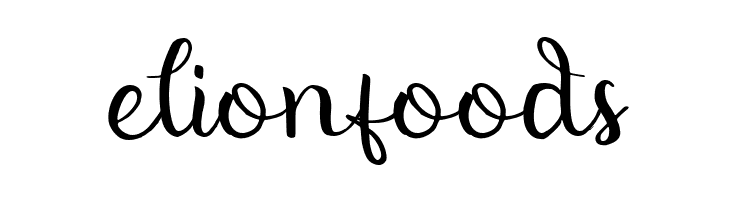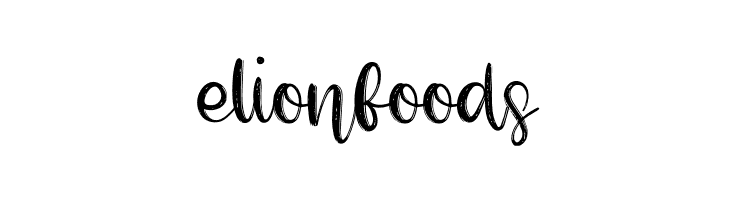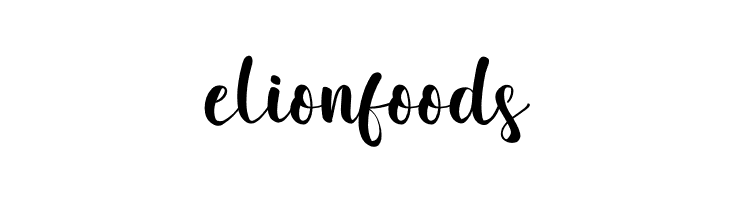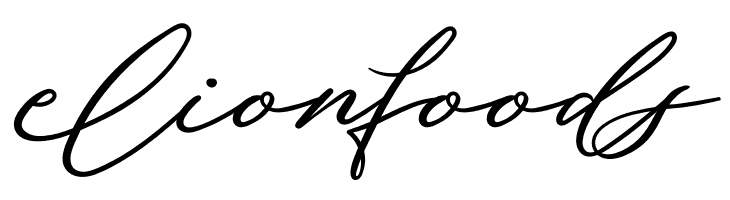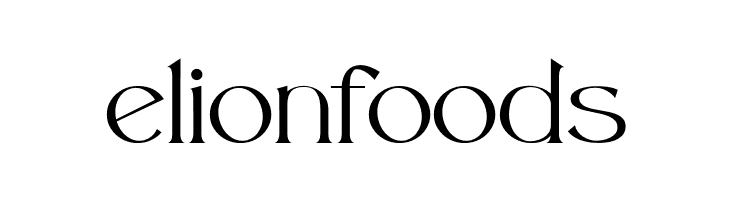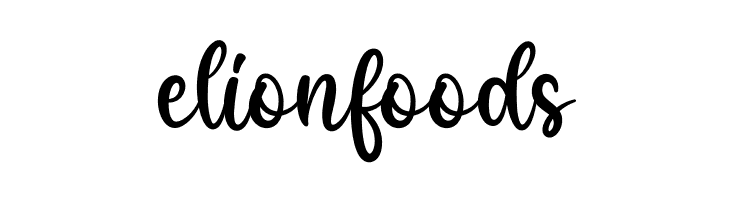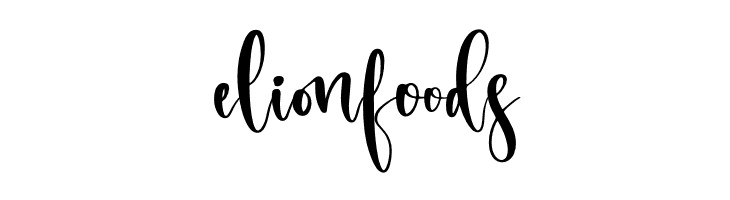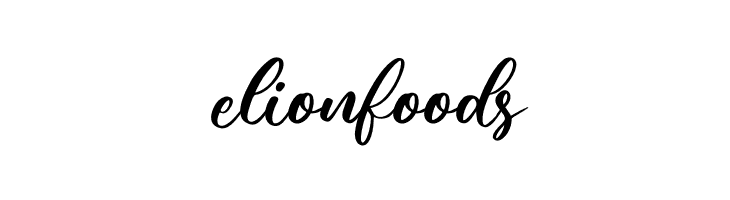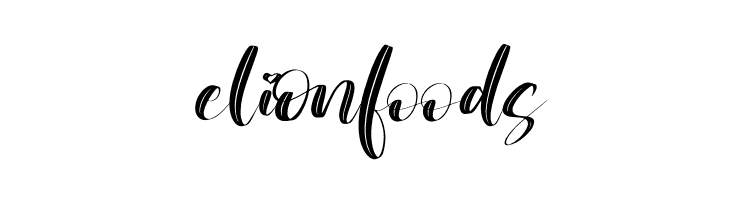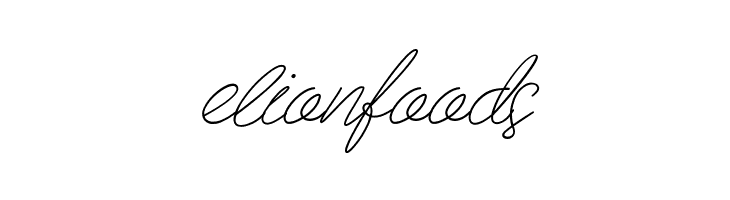
An elegant, flowing script font with a cursive, handwritten style.
A decorative and bold font with playful swirls and flourishes.
An elegant and flowing script font with graceful, cursive letterforms.
A playful handwritten font with smooth, flowing lines and a casual style.
An elegant script font with flowing, cursive strokes and intricate loops.
A graceful and ornate script font with flowing lines and high contrast.
A graceful script font with flowing, cursive strokes and elegant design.
A playful and elegant script font with flowing, connected letters.
A playful and elegant script font with a handwritten style.
An elegant script font with flowing, connected strokes and a sophisticated style.
An elegant script font with flowing, decorative cursive letters.
An elegant script font with flowing, cursive letters and ornate flourishes.
An elegant and flowing script font with ornate uppercase and readable lowercase letters.
A playful, elegant script font with a handwritten style.
A playful and elegant cursive script with bold, sweeping strokes.
A playful, casual handwritten font with smooth, flowing lines.
An elegant, cursive script font with a handwritten feel.
An elegant, flowing script font with intricate swirls and high contrast.
A decorative script font with elegant loops and high contrast strokes.
A playful and elegant handwritten script font with fluid, connected letters.
An elegant, cursive script font with intricate loops and swirls.
A whimsical and elegant handwritten font with flowing, interconnected letterforms.
An elegant script font with intricate loops and swashes, perfect for decorative use.
A modern, cursive font with elegant curves and a handwritten feel.
A graceful script font with fluid, connected strokes and elegant flourishes.
A flowing, handwritten style with elongated, slanted letters and thin strokes.
A decorative font with elegant swashes and modern flair.
A playful, handwritten font with smooth curves and a casual style.
A playful, hand-drawn font with brush-like strokes and a dynamic appearance.
An elegant script font with high contrast and flowing, cursive style.
An elegant, high-contrast font with a modern and classic blend.
A bold, expressive handwritten font with smooth, flowing lines.
A modern, flowing script font with elegant curves and dynamic style.
A playful, hand-drawn font with uneven strokes and a casual style.
A cursive, handwritten font with a dynamic and flowing style.